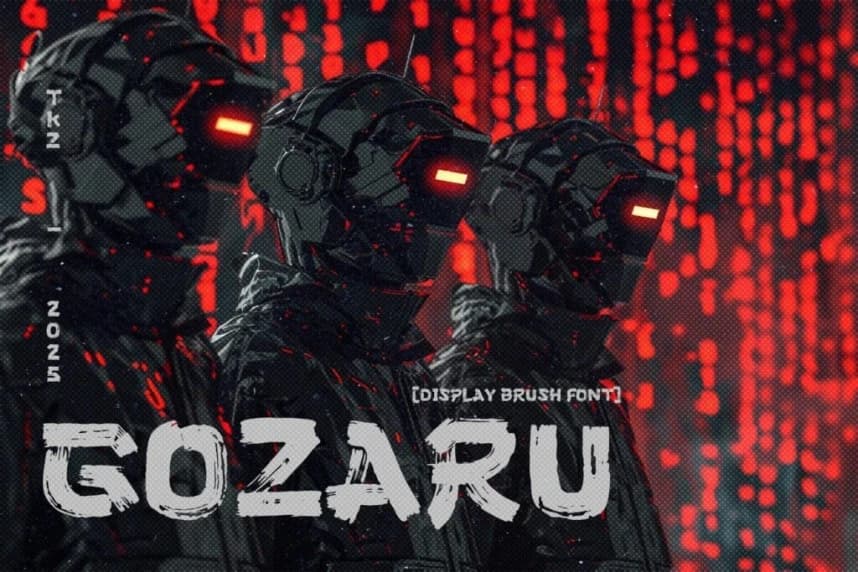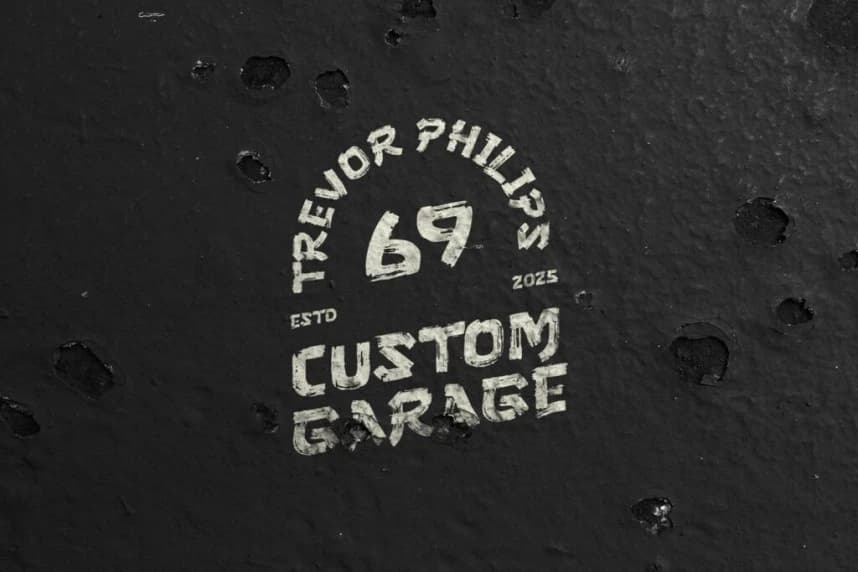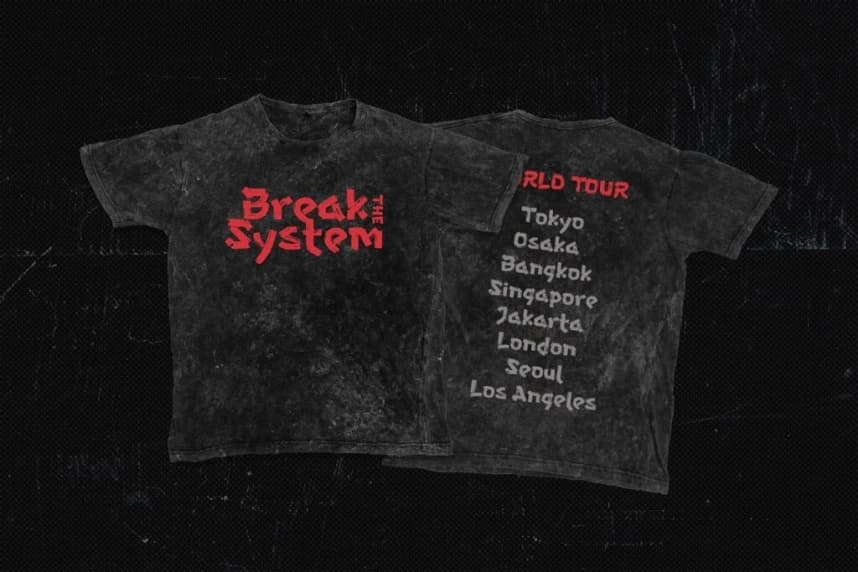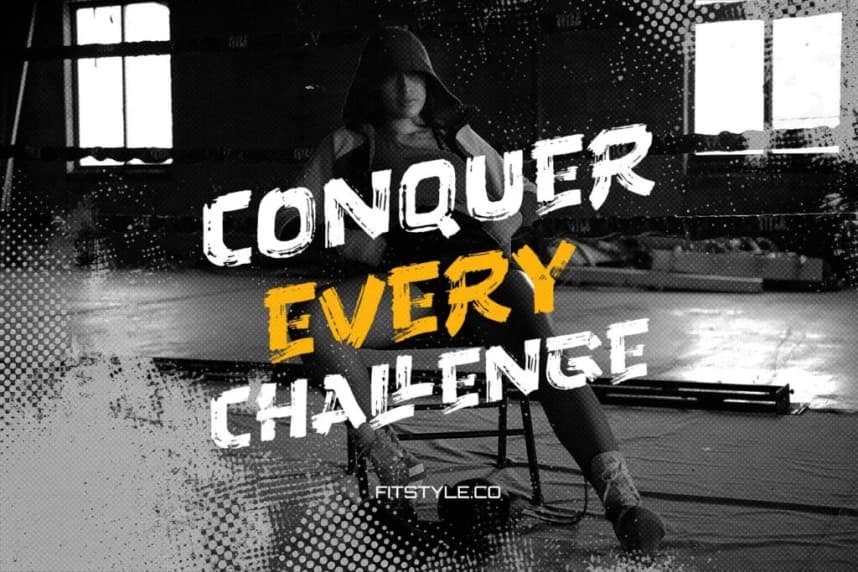
Gozaru Brush Font
Gozaru Brush Font is a grungy and playful hand-drawn brush font that grabs instant attention with its bold structures and textured stroke design. Its edgy characteristics and remarkable readability make it both captivating and functional
Gozaru Brush